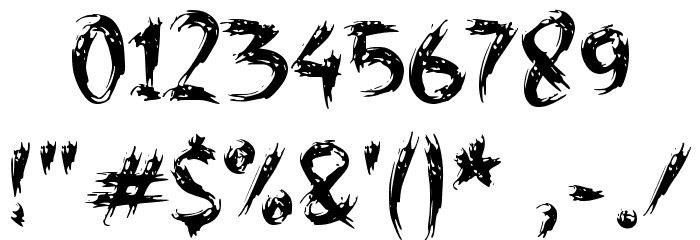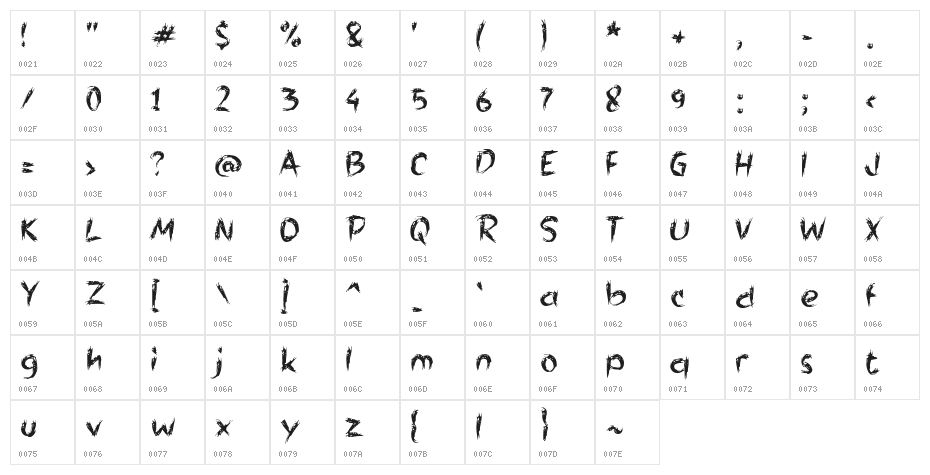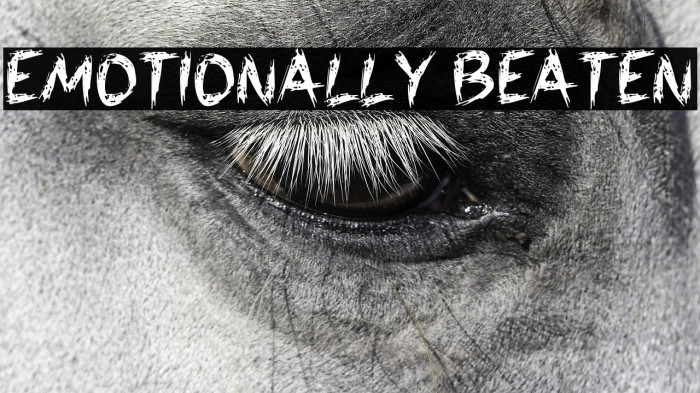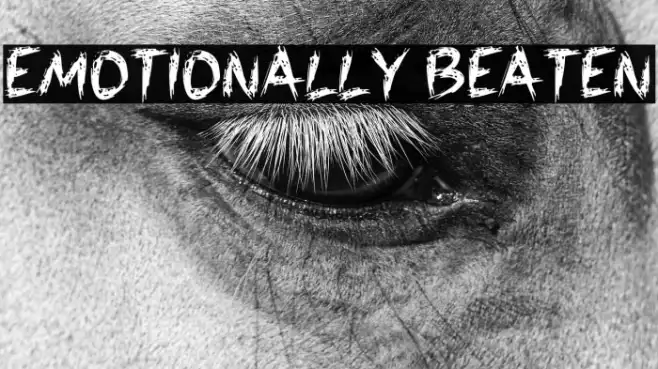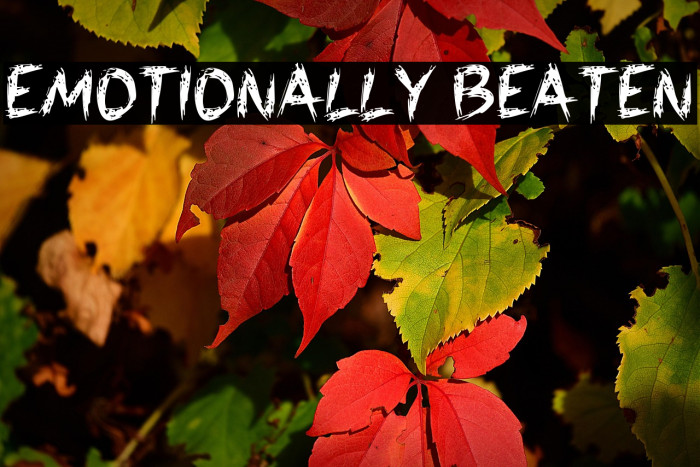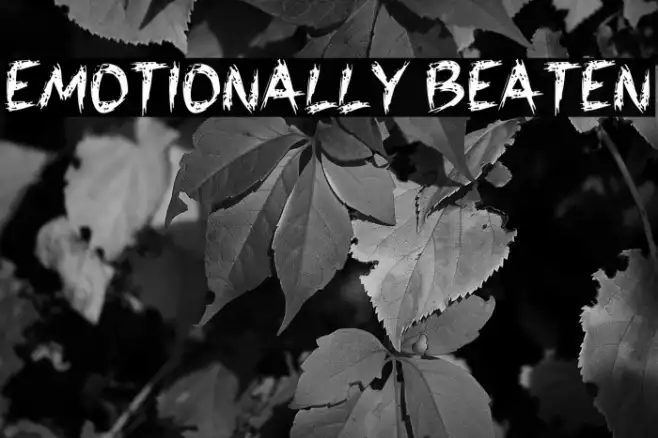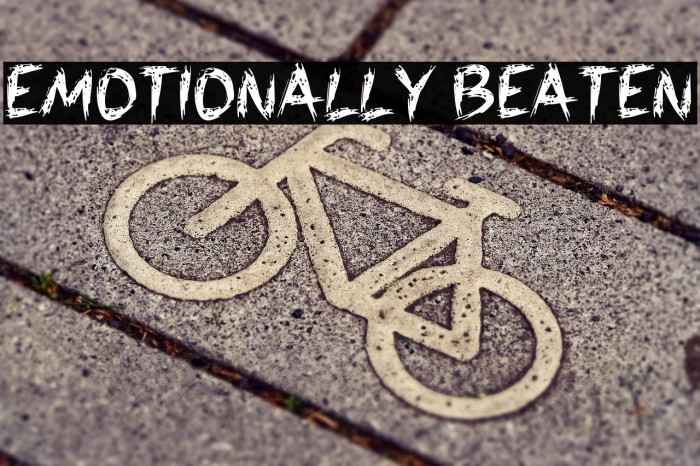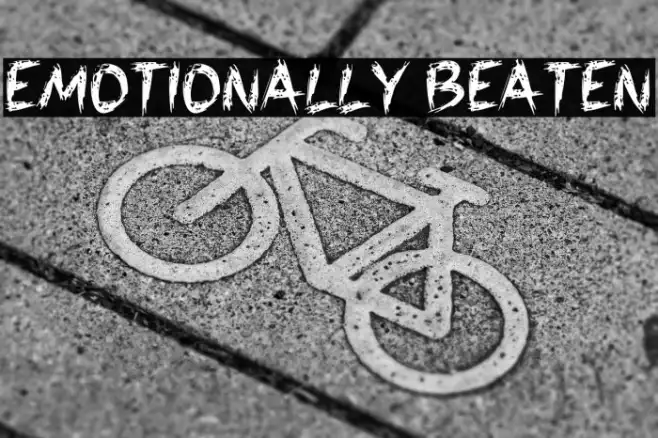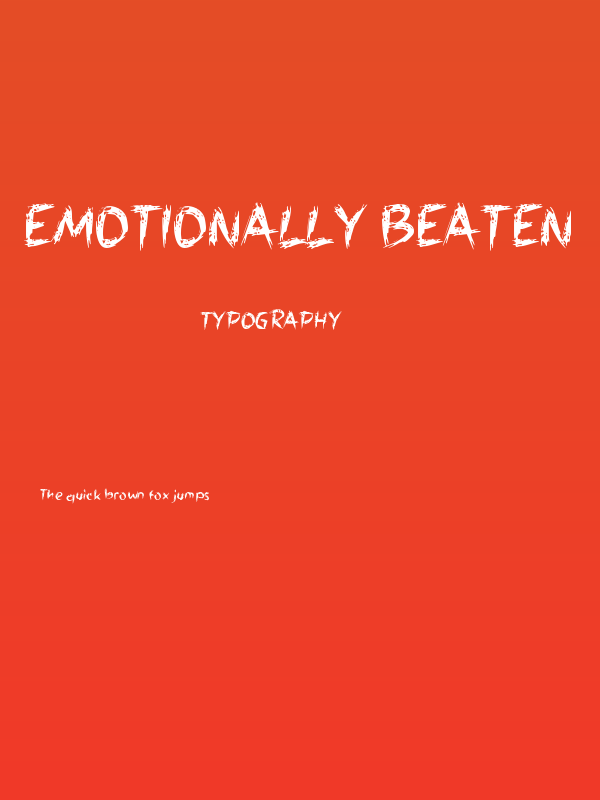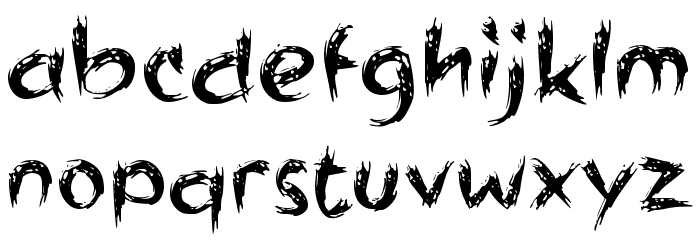
EMOTIONALLY BEATEN Font
EMOTIONALLY BEATEN Description
This font features a highly distressed and chaotic appearance, with jagged edges and irregular strokes that give it an intense, raw energy. The characters are bold and dynamic, each letter appearing as if it has been scratched or torn, creating a sense of urgency and emotion. The uppercase and lowercase letters maintain this rugged style, while the numbers and special characters follow suit with the same edgy design. This font's unique aesthetic makes it stand out, capturing attention with its aggressive and expressive look.
Use CaseHeadlines, Posters, Album Covers
Proposed ProjectsIdeal for horror-themed designs, edgy posters, album covers, or any project requiring a dramatic and intense visual impact.